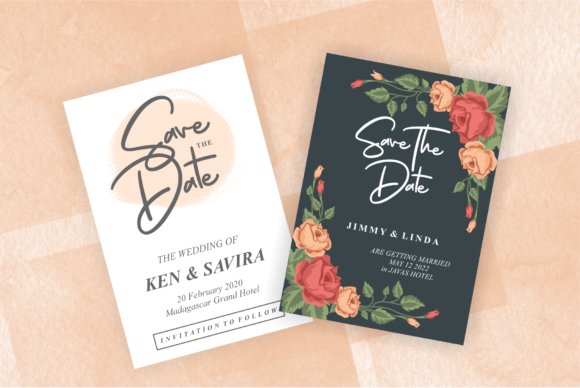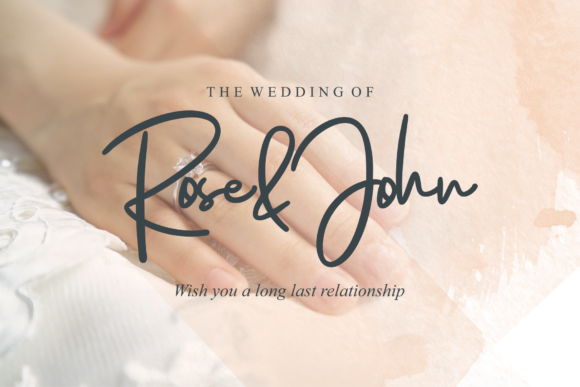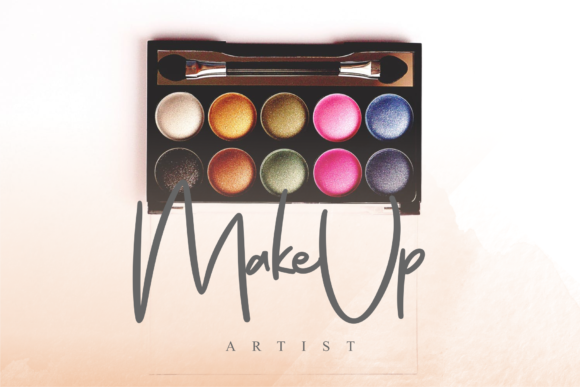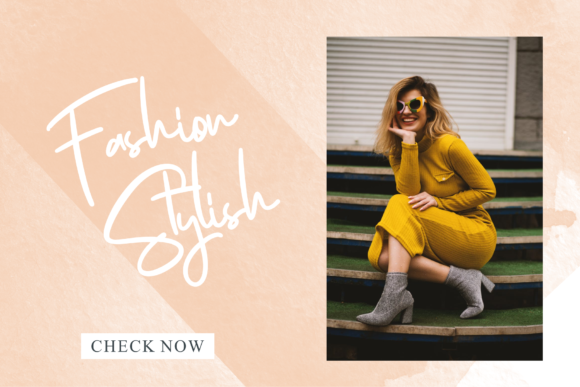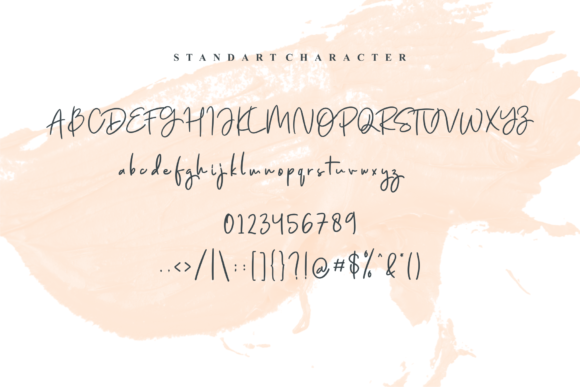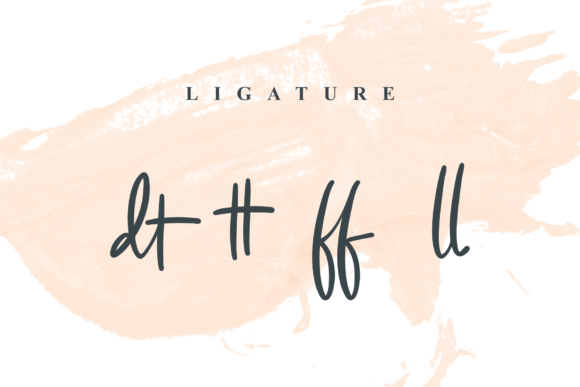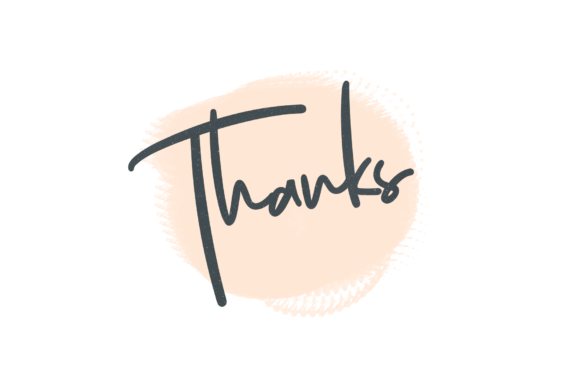
HomeScript FontsJenifa Font Script Fonts Jenifa Font FacebookXPinterestWhatsApp Jenifa Font Poster 2 Jenifa Font Poster 3 Jenifa Font Poster 4 Jenifa Font Poster 5 Jenifa Font Poster 6 Jenifa Font Poster 7 Jenifa Font Poster 8 About Jenifa Font The Jenifa is modern, feminine script. Every letter has been carefully crafted to give your designs an elegant feel DOWNLOAD NOW People also explored Saturday Font Vibesday Font Marghote Font Mayhem Font Boilermaker Lore Nekromantea Hollow Font Amealnia Font Shalentta Font The Rose Script Font 376 0 TagsJenifa Font Previous articleAcknesia FontNext articleAshytha Font LEAVE A REPLY Cancel reply Comment: Please enter your comment! Name:* Please enter your name here Email:* You have entered an incorrect email address! Please enter your email address here Website: Save my name, email, and website in this browser for the next time I comment. Personal Use Free Love Ya Personal Use Free Read more about this font Gunplay Personal Use Free Read more about this font Osaka Personal Use Free Read more about this font Comic Caps Personal Use Free Read more about this font BLOG Elegant Wedding Invitation Fonts – Handwritten & Script Fonts Elegant Wedding Invitation Fonts Your wedding day is one of the most important moments of your life, and every detail matters—including your invitation design. Our... Using Fonts in Digital Marketing: Tips to Strengthen Your Brand Identity Top 7 Google Fonts Alternatives for Faster and Privacy-Friendly Web Design (2025) Where to Buy American Fonts Online in 2024